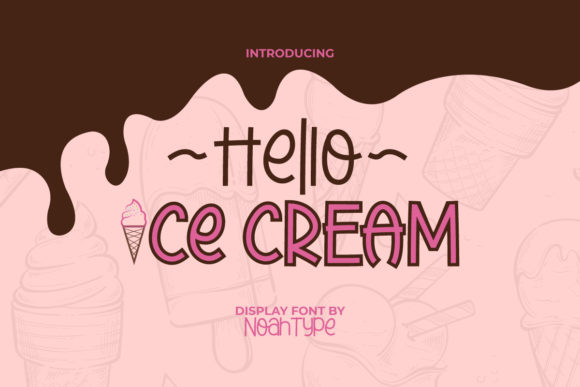
Hello Ice Cream: A Fun and Functional Display Font for Creative Workflows
For professionals, creators, and entrepreneurs who value both aesthetics and functionality in their work, Hello Ice Cream offers a unique blend of charm and practicality. This display font is more than just a visual elementβit's a tool that can enhance communication, streamline design processes, and add personality to projects across various industries. Whether you're working on branding, marketing materials, or personal creative endeavors, Hello Ice Cream provides a versatile solution that fits naturally into your workflow.
As a PUA-encoded font, Hello Ice Cream allows users to access all glyphs and swashes without the need for complex keyboard layouts or additional software. This makes it particularly useful for designers and developers who want to incorporate custom typography into their projects quickly and efficiently. Its friendly and playful style makes it ideal for projects that require a light-hearted tone, while its clean structure ensures readability in both digital and print formats.
Integrating Hello Ice Cream into Your Workflow
Understanding how to integrate Hello Ice Cream into your workflow can help you maximize its potential. Whether you're starting a new project, refining an existing one, or looking for ways to add visual interest to your output, this font can serve as a valuable asset. The key is to identify where and how it can complement other tools, resources, and processes you already use.
Before beginning a project, consider how Hello Ice Cream might contribute to your initial concept or branding strategy. For instance, if you're designing a logo or a social media campaign with a whimsical theme, this font can provide the perfect visual identity. It works well alongside other fonts that balance creativity with professionalism, such as sans-serif or script styles. By planning ahead, you can ensure that your typography choices align with your overall design goals.
During the execution phase, Hello Ice Cream can be used to create eye-catching headlines, call-to-action buttons, or decorative elements that reinforce your message. Its swash variations allow for subtle customization, making it easier to maintain consistency while adding visual flair. When working with design software like Adobe Illustrator, Figma, or Canva, you can easily apply the font to text layers, ensuring that it integrates seamlessly with your layout and color scheme.
After completing a project, Hello Ice Cream can still play a role in quality control and long-term maintenance. If you're updating a website, app, or marketing collateral, using this font consistently across all platforms helps maintain brand recognition. It also simplifies the process of revisiting past work, as the font's clear structure ensures that text remains legible and easy to edit over time.
Use Cases and Practical Applications
Hello Ice Cream is particularly effective in scenarios where a friendly and approachable tone is needed. For example, in educational content, it can be used to make learning materials more engaging for students. In marketing campaigns, it can help convey a sense of fun and creativity that resonates with target audiences. Its versatility also makes it suitable for personal projects, such as journaling, DIY crafts, or social media posts.
One practical application is in the creation of promotional materials for small businesses or startups. Whether you're designing a flyer, a business card, or a website header, Hello Ice Cream can add a distinctive touch that sets your brand apart. It pairs well with bold colors, minimalistic layouts, and modern design trends, making it a flexible choice for a wide range of visual styles.
Another area where Hello Ice Cream shines is in content creation for blogs, newsletters, or email campaigns. Using it for subheadings or section titles can break up large blocks of text and draw attention to key points. Its playful nature also makes it ideal for creating visual hierarchy in a way that feels natural and unobtrusive.
Compatibility and Usability Considerations
When incorporating Hello Ice Cream into your workflow, it's important to consider compatibility with different platforms and devices. Since it's a PUA-encoded font, it should work seamlessly with most design and publishing software. However, it's always a good idea to test it across multiple applications to ensure that all glyphs and swashes render correctly.
Usability is another factor to keep in mind. While Hello Ice Cream is designed to be visually appealing, it's not intended for body text due to its decorative nature. Instead, it's best suited for headings, logos, and other short-form text elements. This ensures that your audience can easily read and understand your content without being distracted by overly stylized typography.
Organization and efficiency are also key when using this font. Keeping a library of fonts you regularly use, including Hello Ice Cream, can help streamline your design process. You can also create templates or style guides that specify when and how to use the font, ensuring consistency across all your projects.
With its ease of use, flexibility, and visual appeal, Hello Ice Cream is a valuable addition to any designer's or creator's toolkit. By using it strategically and thoughtfully, you can elevate your designs, improve your communication, and bring a fresh perspective to your work.